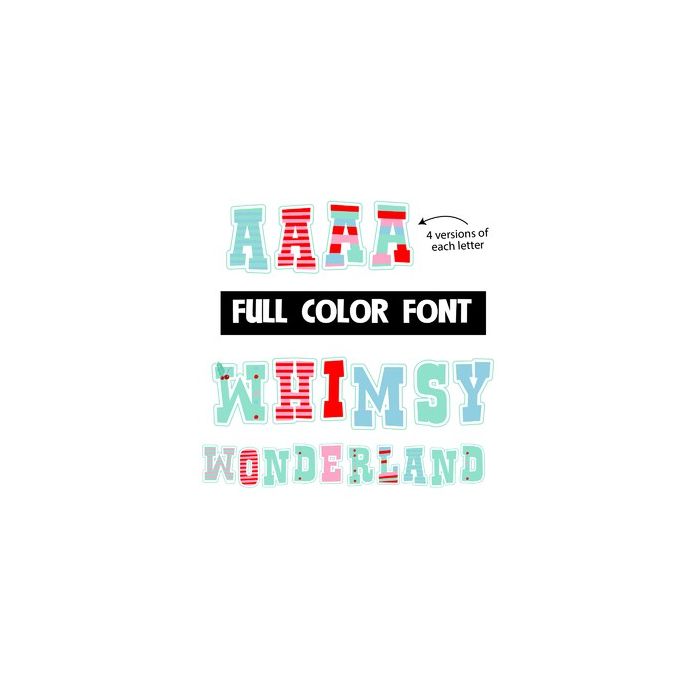
This full-color font features blocky, serif letters with a holiday color palette and whimsy-like imagery here and there. There is an alt uppercase with secondary colors that you can access through your system's character map. This font works best for titles, displays, posters and more. Please note color fonts will show as black in non compatible programs. This font type is compatible with Silhouette Studio.